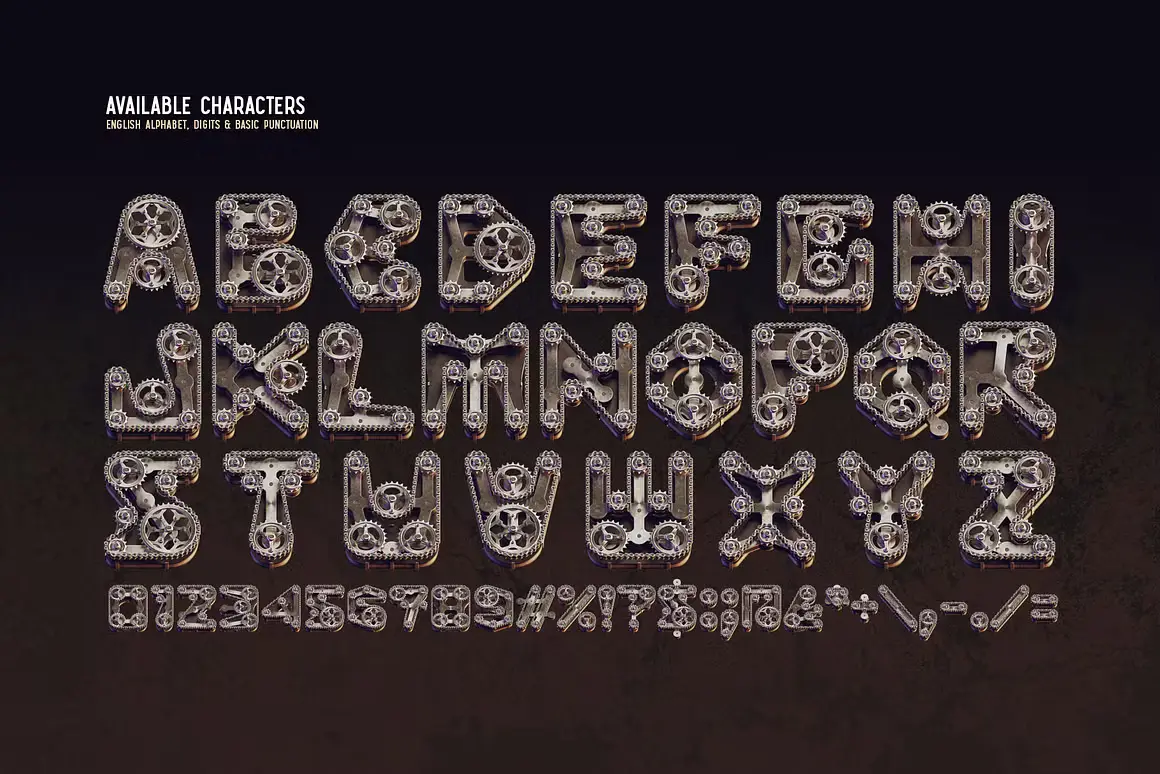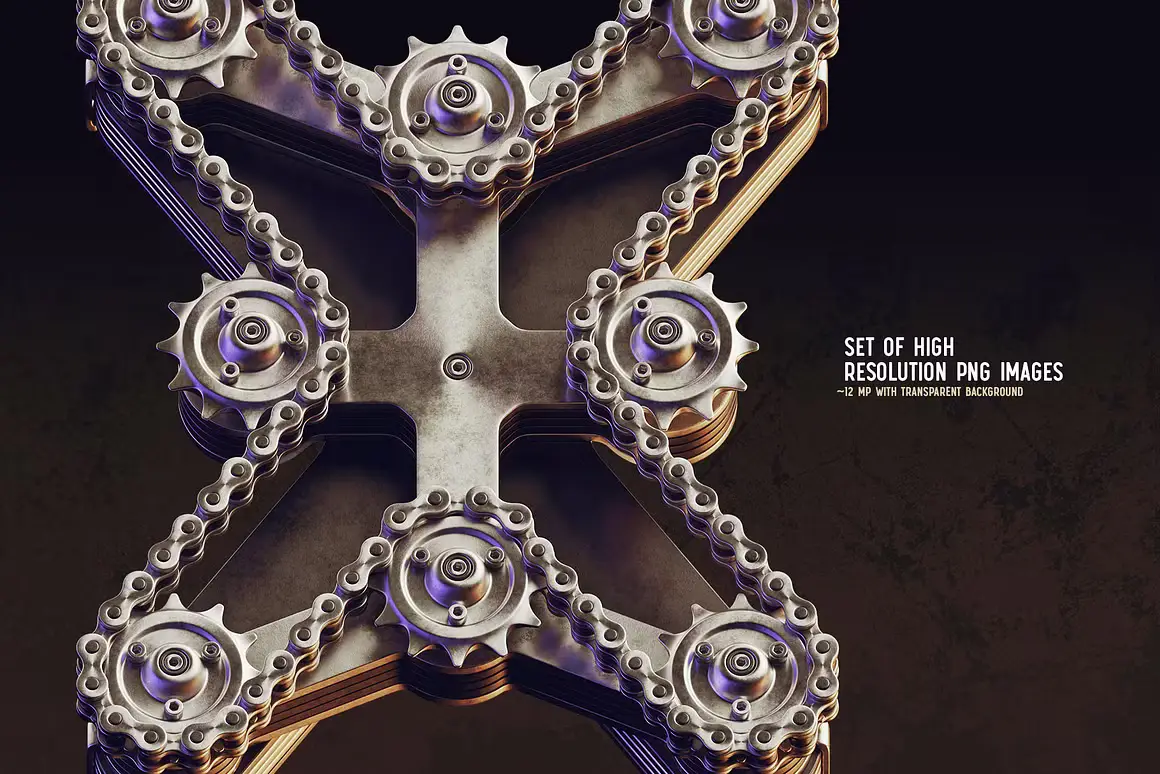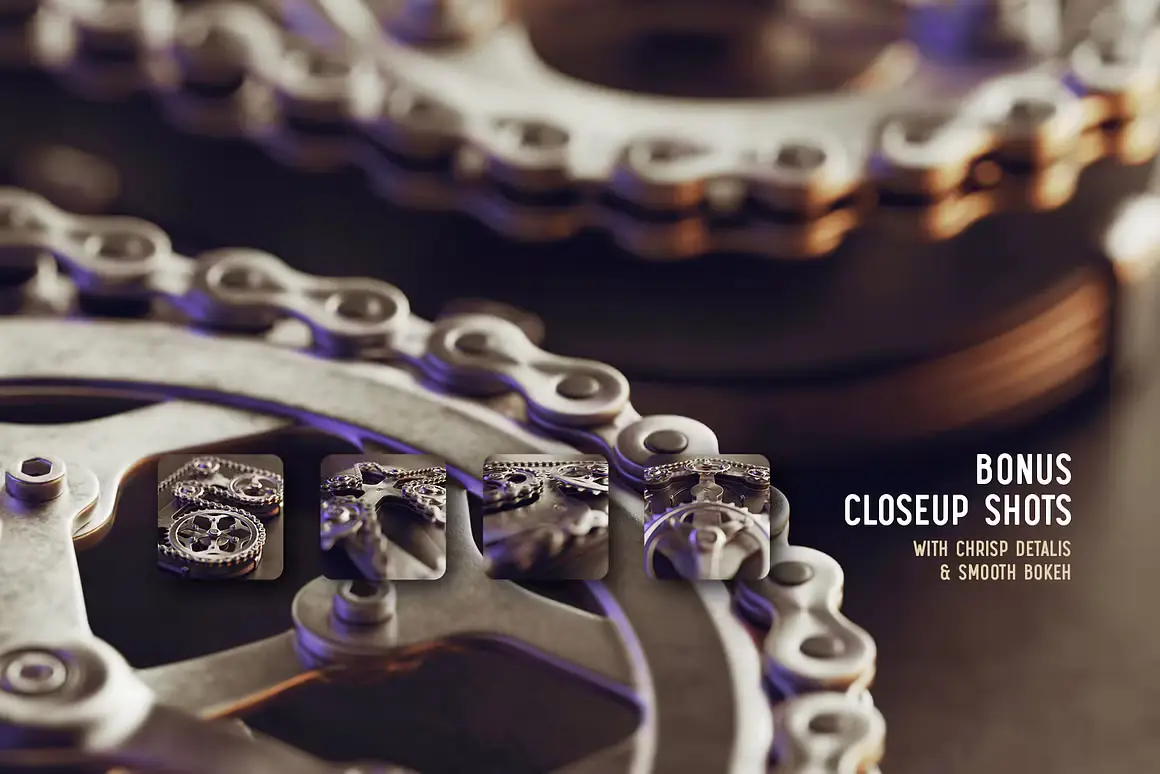
Bike Mech – Color Bitmap Font
Introducing the Bike Mech, a stunning steampunk-style font set that brings a unique, mechanical aesthetic to your projects. This high-quality typeface is crafted from bike gears and chains, offering a distinctive look that stands out.
The Bike Mech is a color bitmap OpenType-SVG font, allowing you to use it seamlessly as a traditional OTF font. Its intricate design is perfect for adding a touch of industrial flair to your graphics, making it ideal for both personal and professional use.
- ✅ Unique Steampunk Design → Perfect for projects needing a mechanical or retro aesthetic.
- ✅ High-Quality 3D Rendering → Ensures clarity and detail in every character.
- ✅ Color Bitmap Format → Allows for vibrant colors and intricate designs in your typography.
- ✅ Supports English Language and Basic Punctuation → Check the provided screenshot for available characters.
The Bike Mech font set is not just a typeface; it’s a statement. Whether you’re designing a vintage poster, creating artwork for a steampunk-themed project, or enhancing a technical manual, this font adds a unique touch that captivates your audience. Its compatibility with major design applications ensures that you can easily integrate it into your workflow.